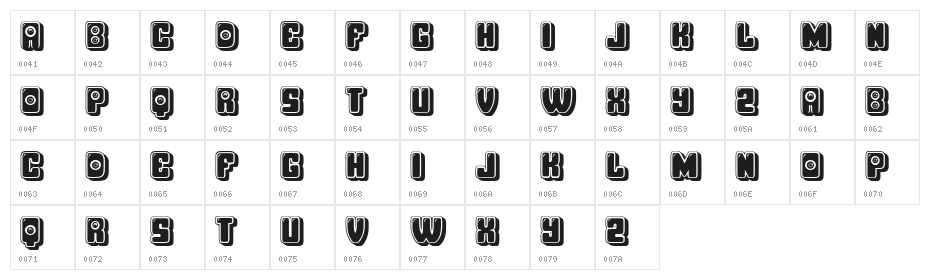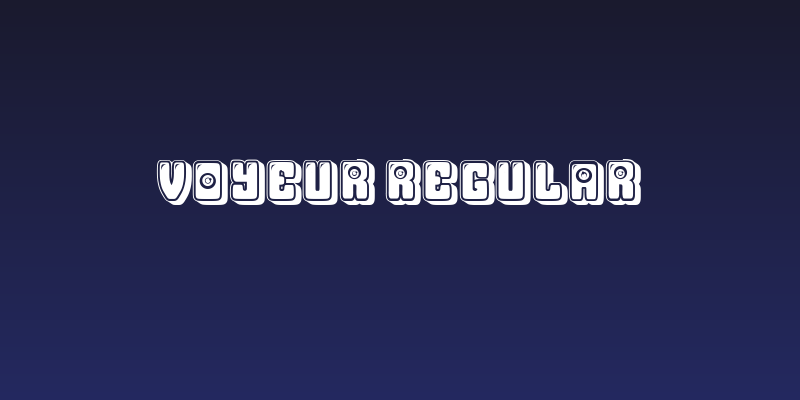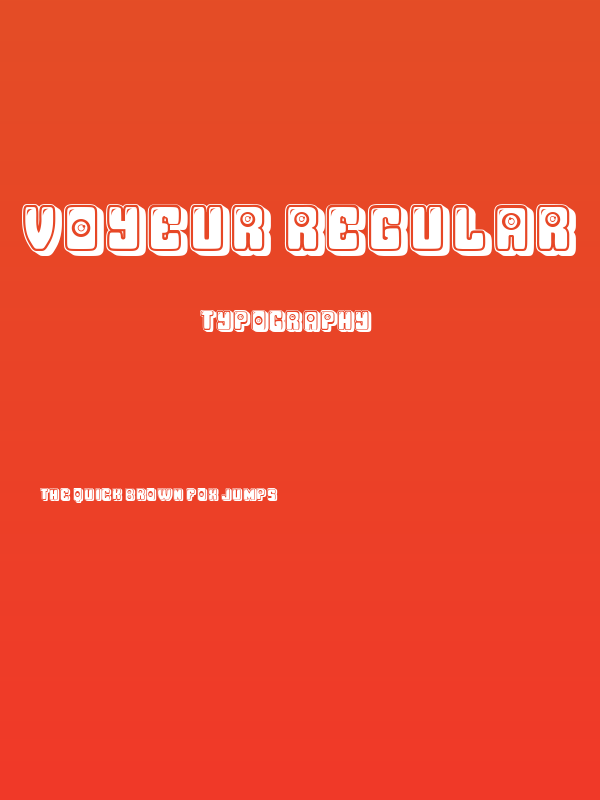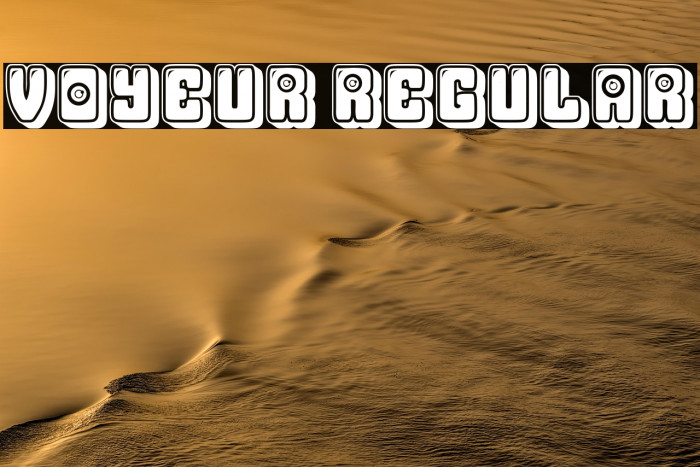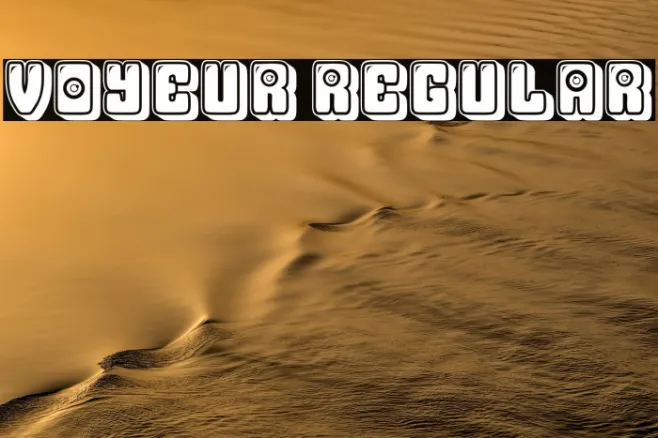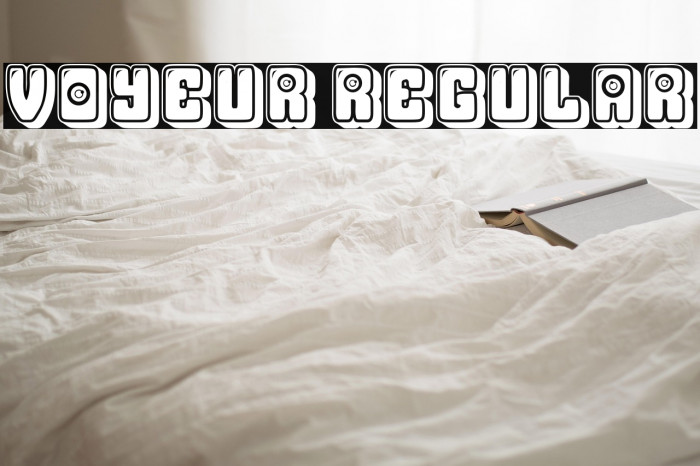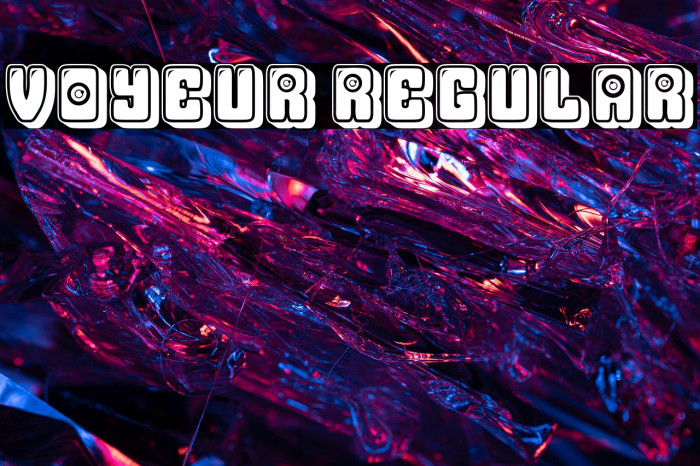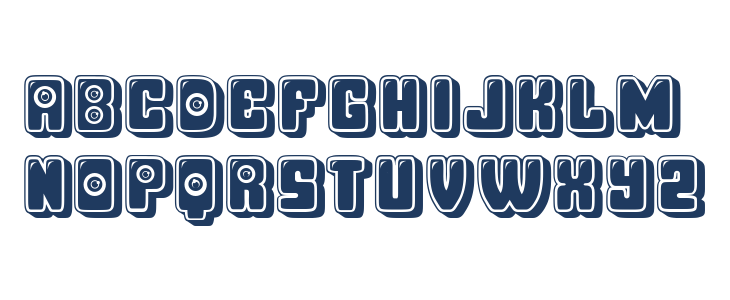
Voyeur Regular Font
Voyeur Regular Description
This font features a bold, playful design with thick, rounded edges and a strong outline that gives each character a three-dimensional appearance. The letters are uniformly wide, creating a sense of balance and consistency across the typeface. The style is distinctly modern and eye-catching, making it ideal for projects that require a bold statement. The characters are well-spaced, ensuring readability despite the heavy design. The font's unique aesthetic is perfect for creative and dynamic applications, adding a touch of fun and energy to any project.